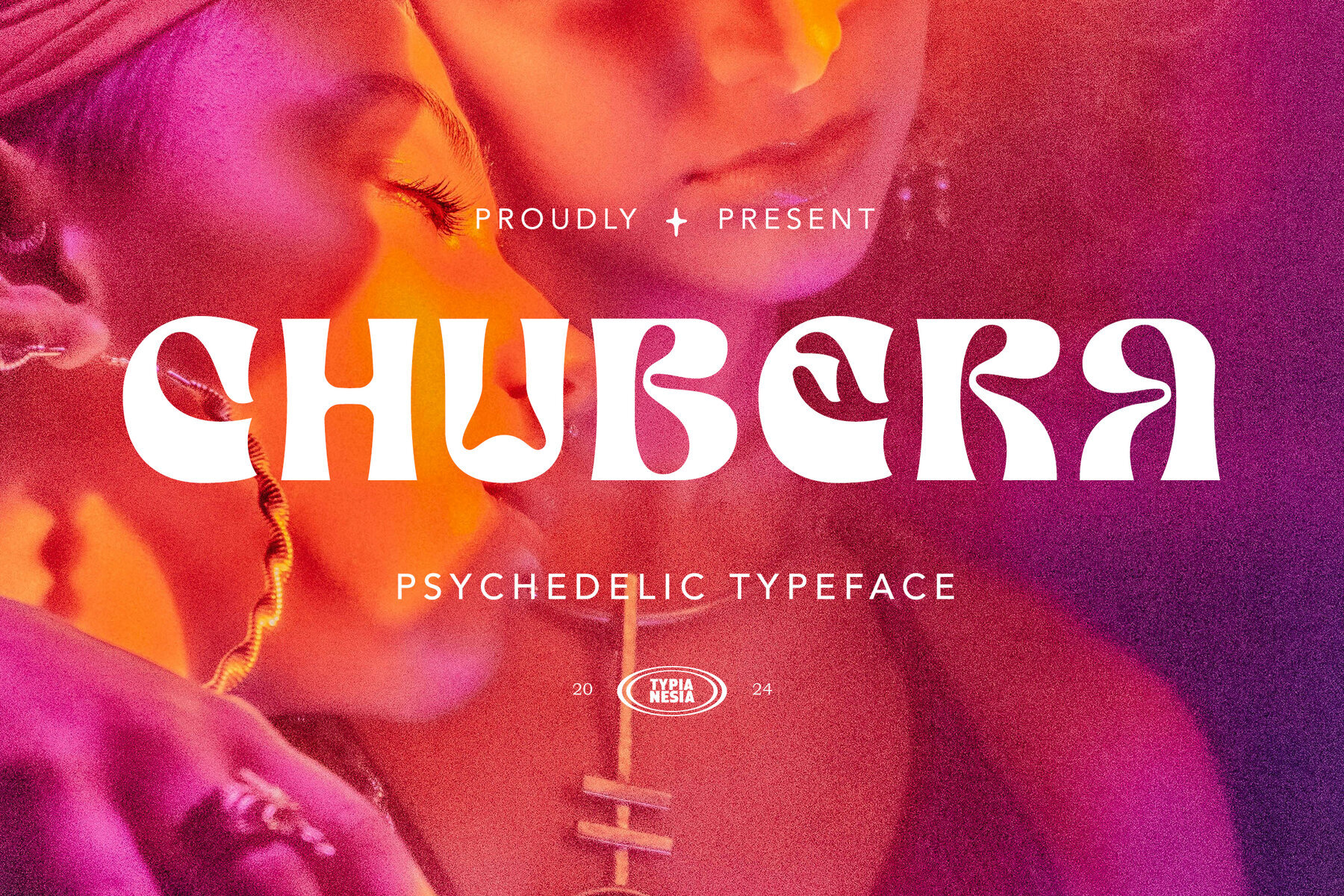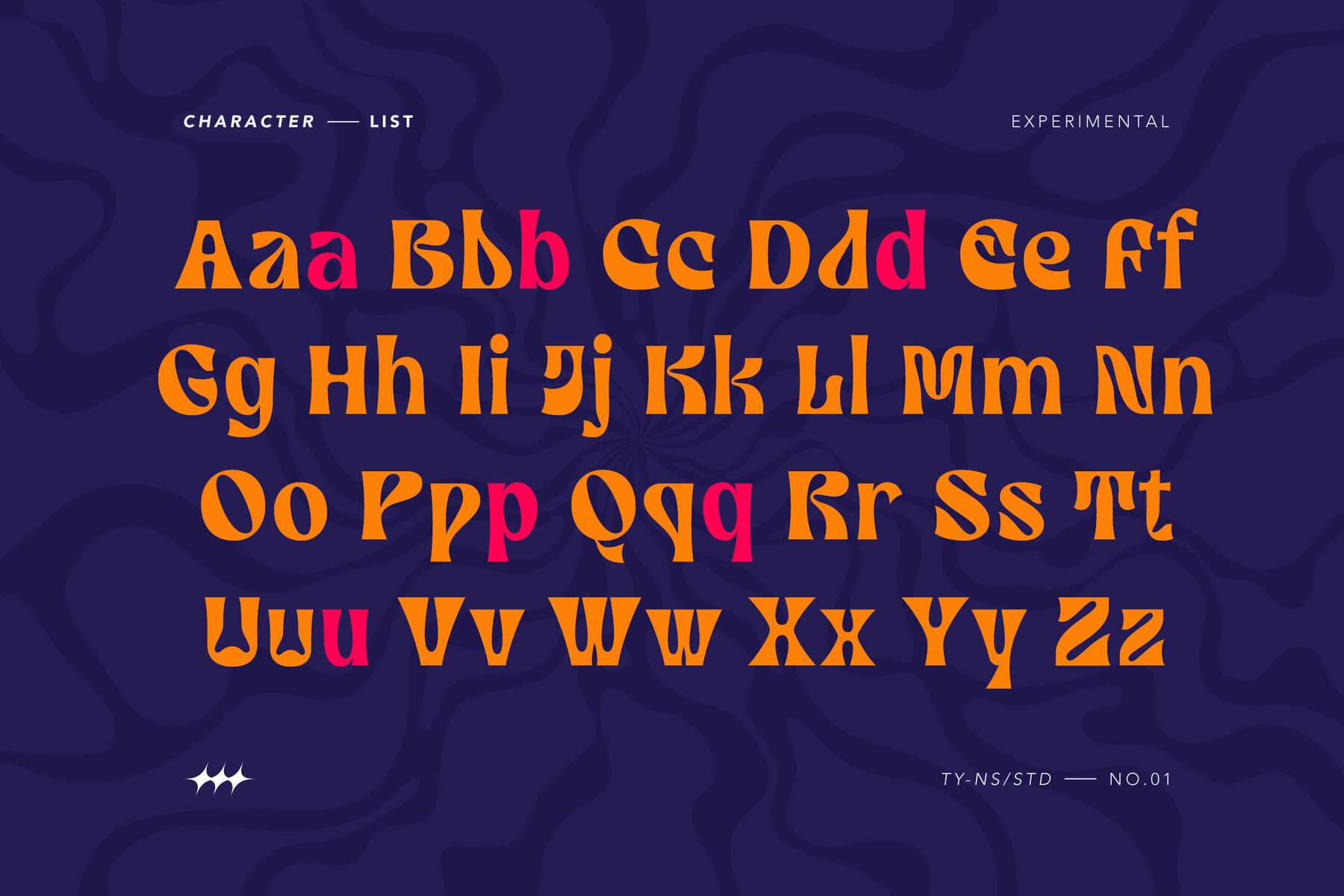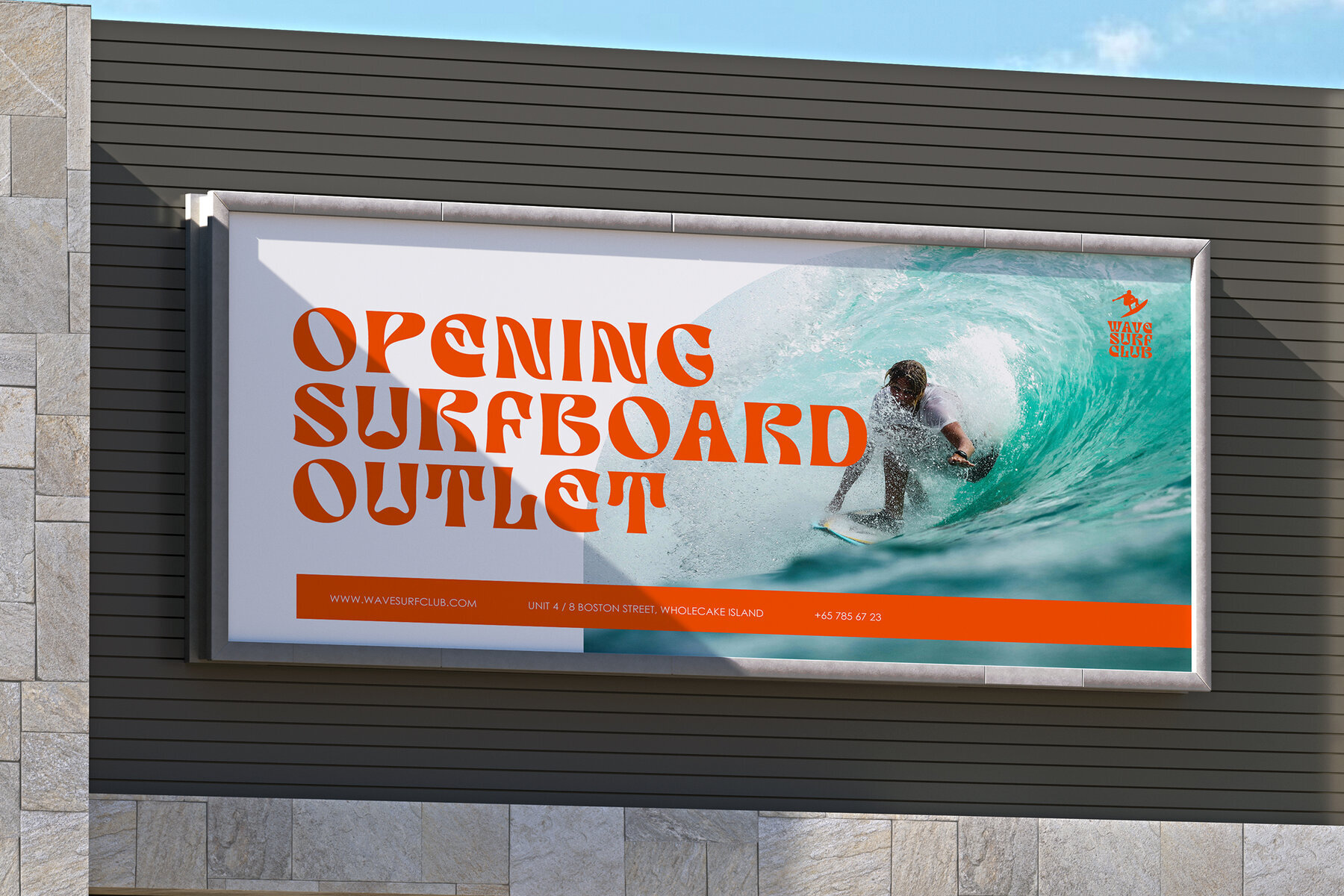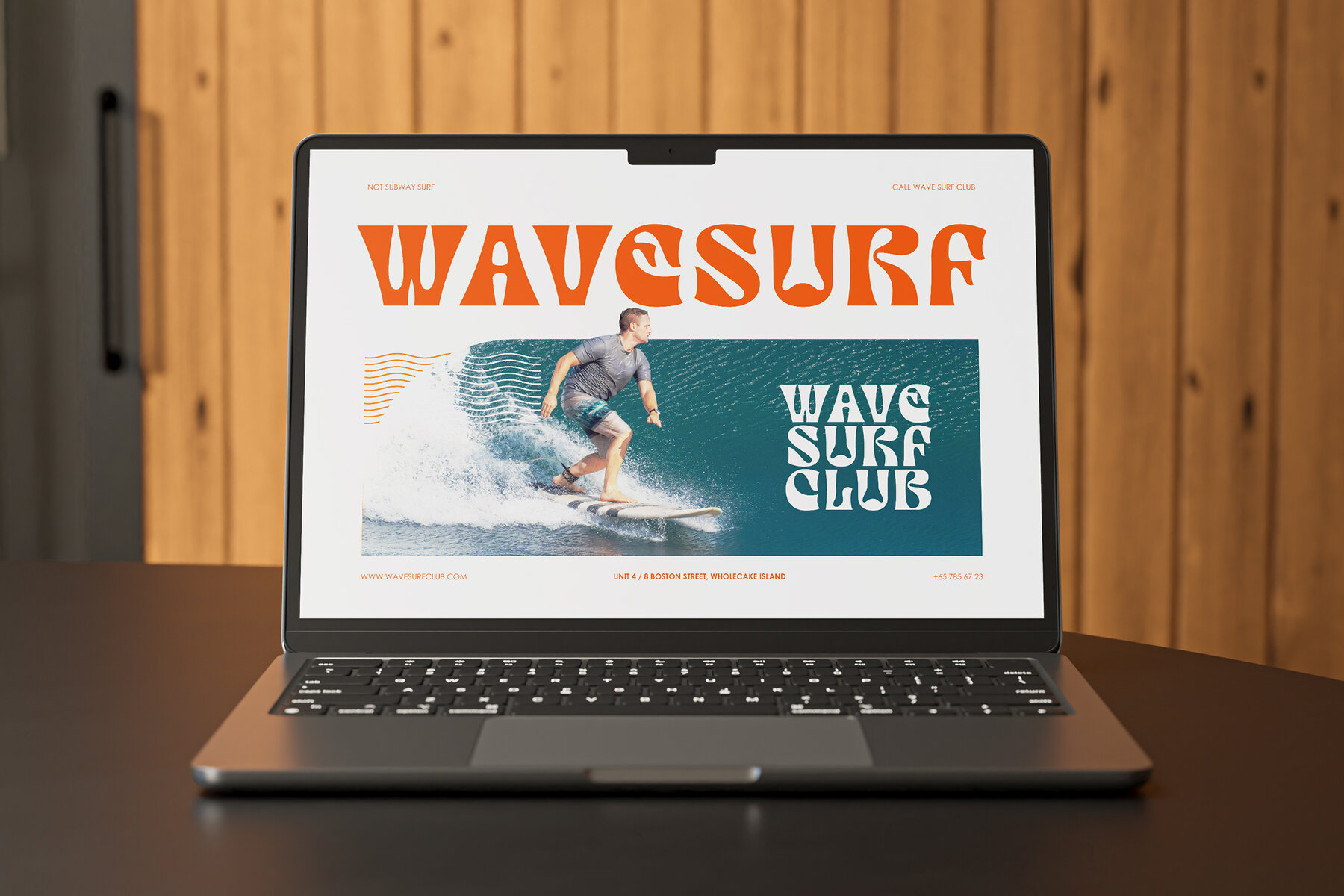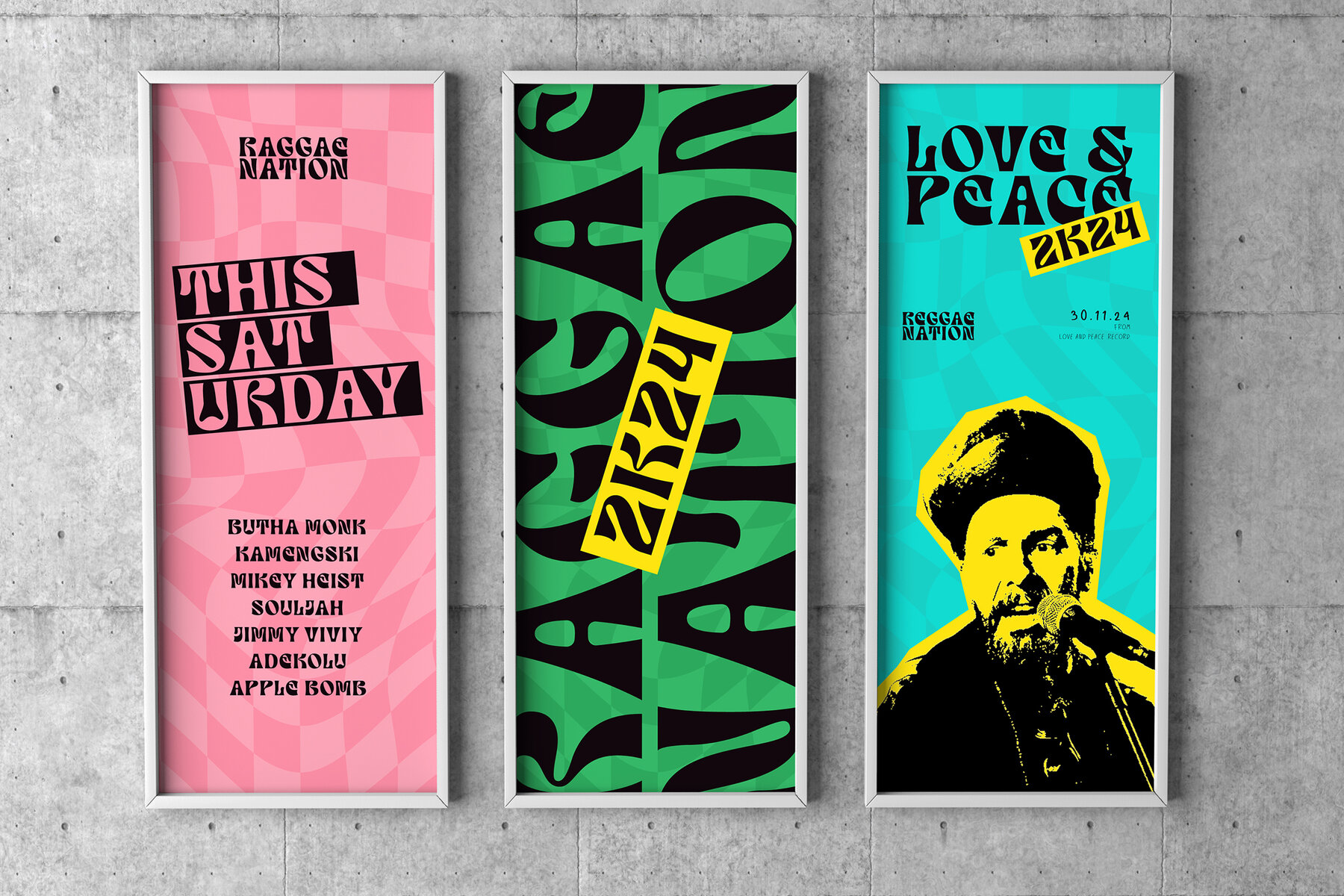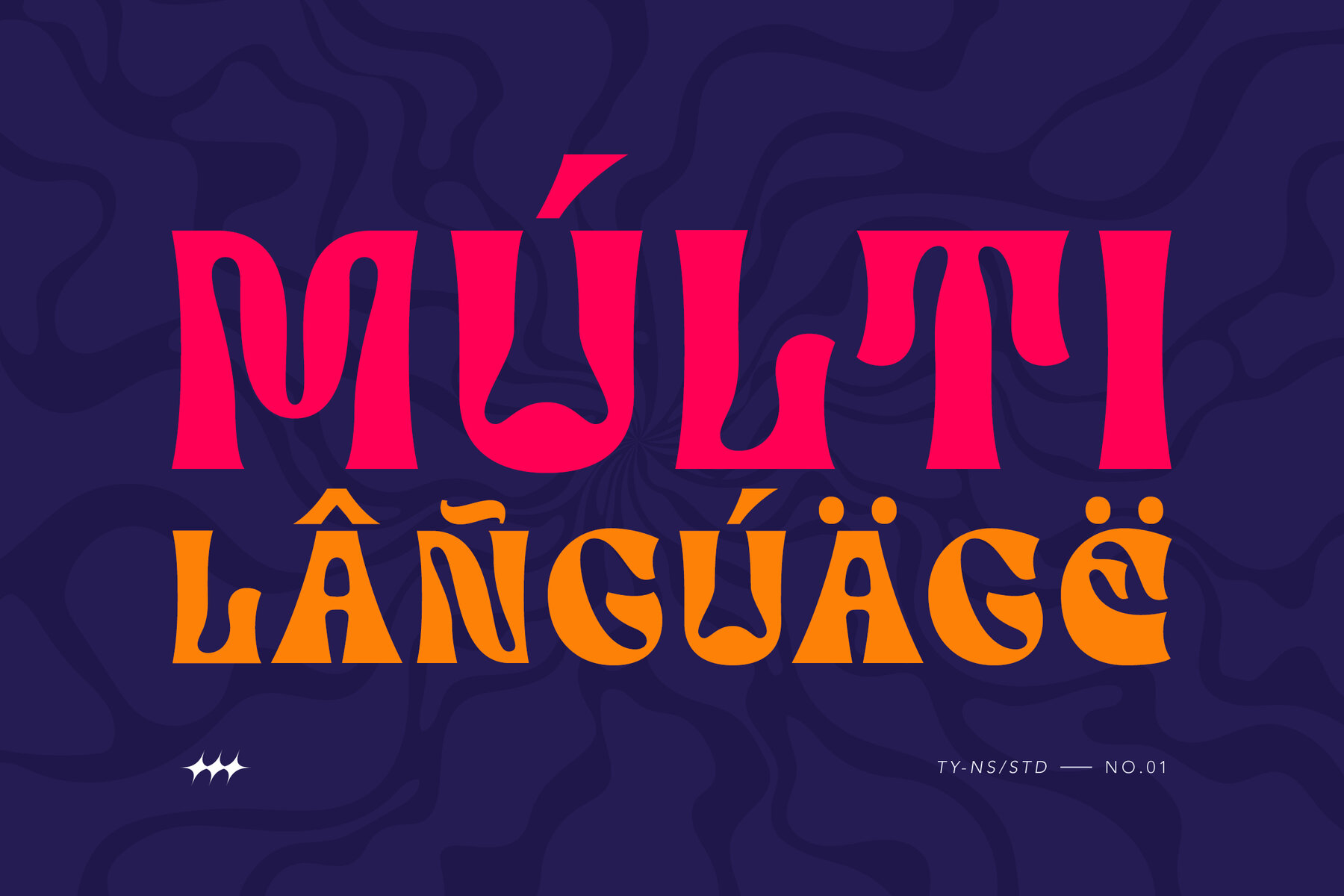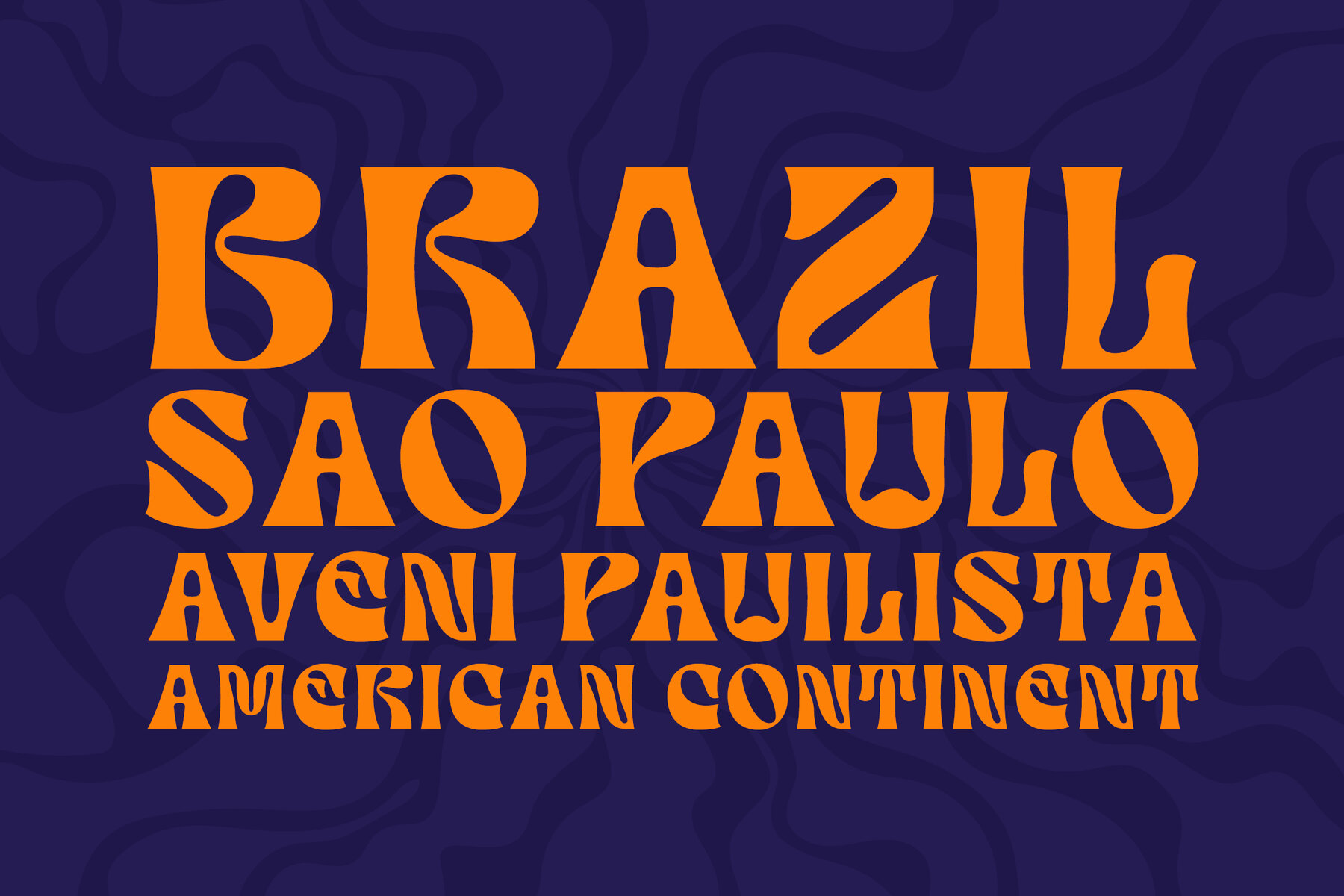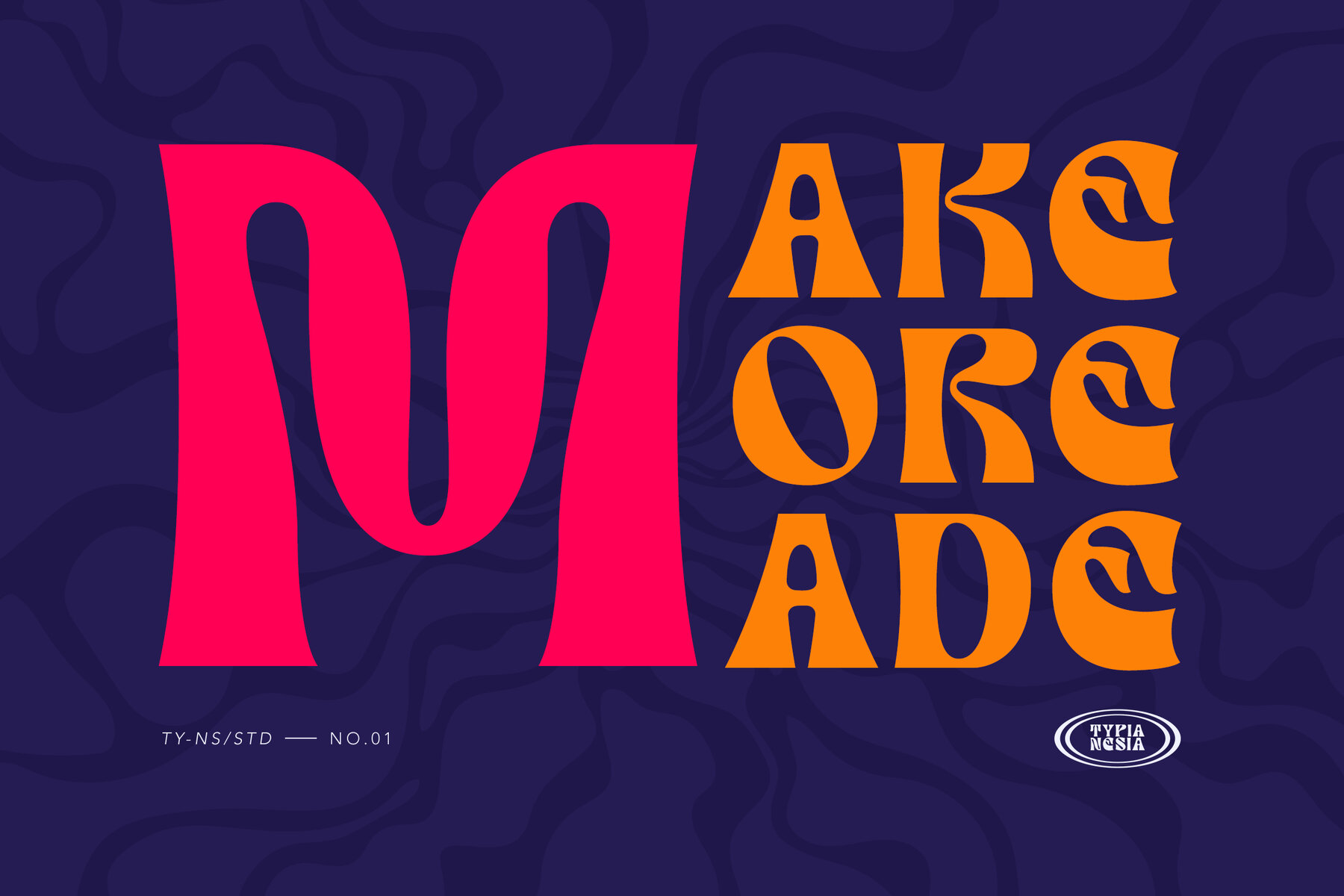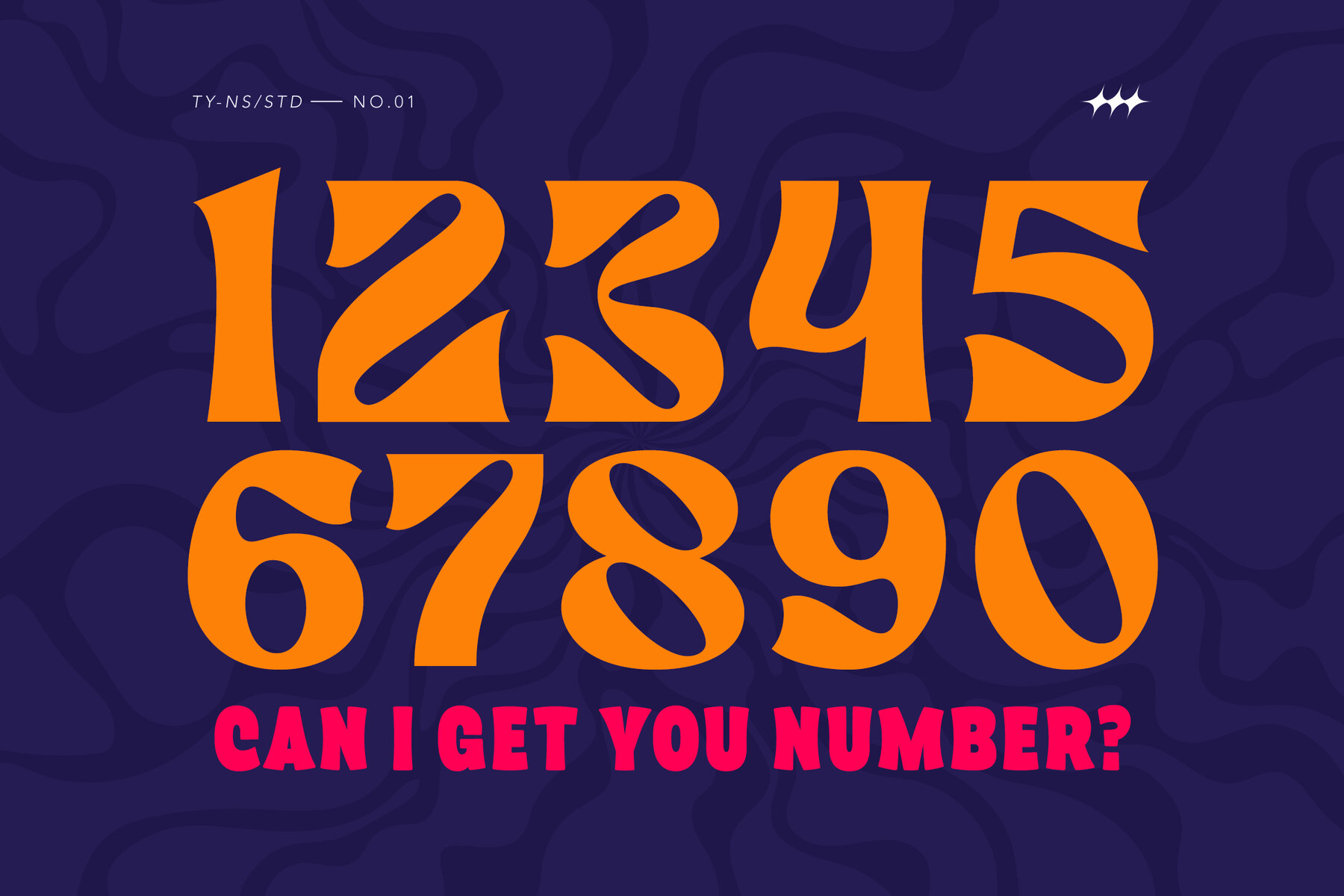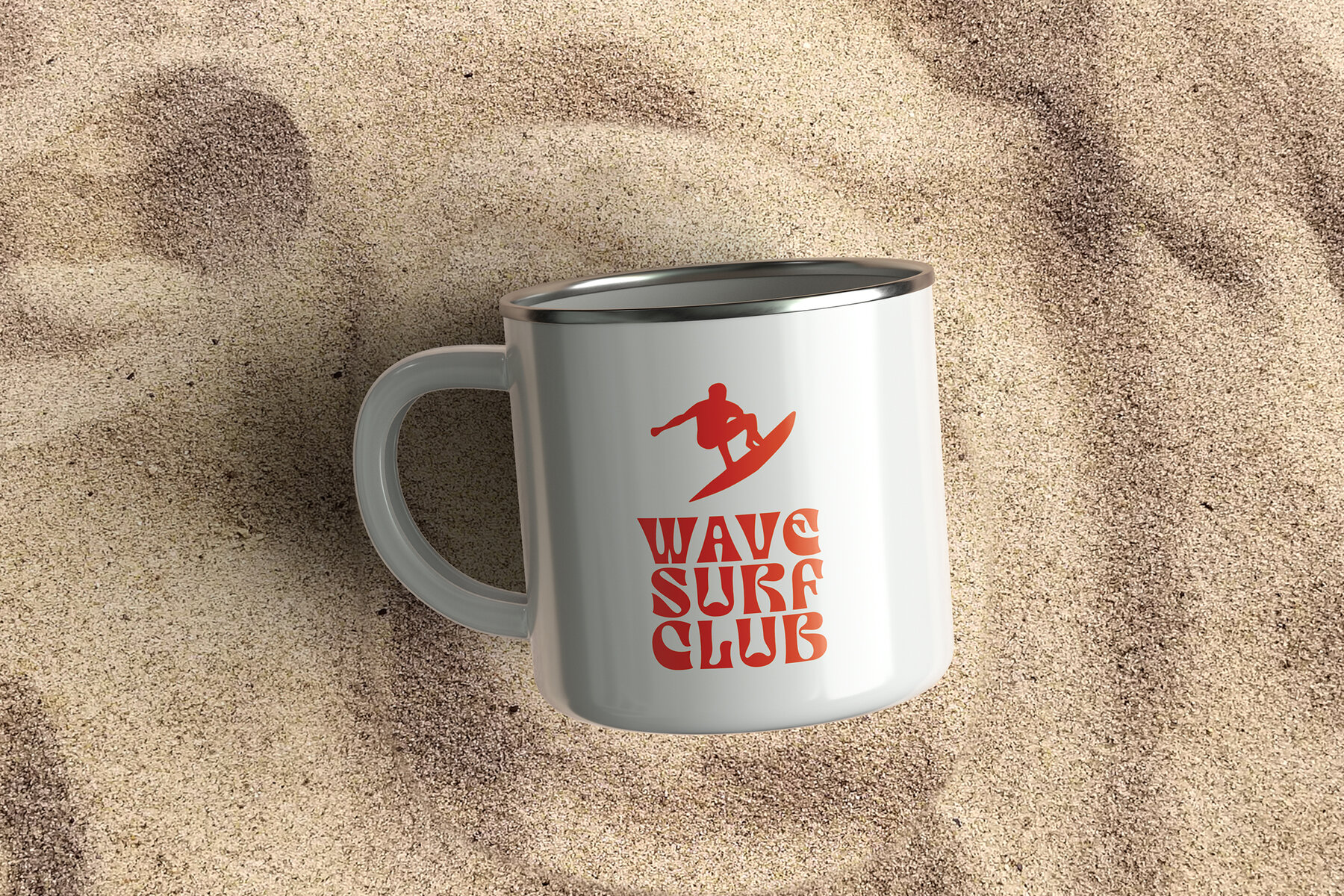
Chubera Font
Chubera Regular
Chubera is a captivating Psychedelic Typeface that transports users into a realm of vibrant colors, swirling patterns, and mind-bending designs. It epitomizes the psychedelic aesthetic, evoking a sense of surrealism and transcendence in every letterform. This font is perfect for projects that aim to channel the spirit of the 1960s and 1970s counterculture movement, including music posters and album covers, event flyers and invitations, visual art projects, psychedelic branding and logos, printed merchandise, film and video titles, and experimental typography projects, where creativity knows no bounds. You can use the font to explore its psychedelic aesthetic by playing with colors, effects, and compositions to create visually captivating designs that reflect the spirit of psychedelic culture and creativity. Chubera comes with Alternates and comprehensive support for both uppercase and lowercase letters, punctuation marks, and numerals.These features empower designers to unleash their creativity and craft visually captivating compositions. Additionally, multilingual support ensures accessibility across various languages and regions. Crafted with expertise in psychedelic art and typography, Chubera reflects the essence of the psychedelic era with its intricate designs and captivating aesthetics.